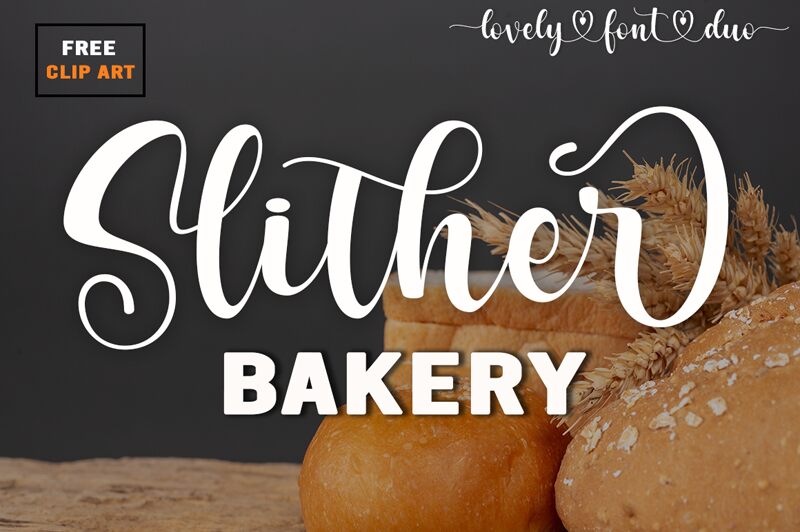
Bakery
Bakery, a striking sans serif font designed by Fadlilah Studio, brings a touch of boldness to your creative projects. With its extra-bold weight and semi-expanded width, this font demands attention and carries a sense of confidence.
Perfect for eye-catching headlines, logos, or packaging designs, Bakery adds a modern and professional touch to any project. Its clean lines and sharp edges make it versatile for various industries such as food and beverage, fashion, or technology.
Let Bakery elevate your designs with its unique blend of strength and sophistication.